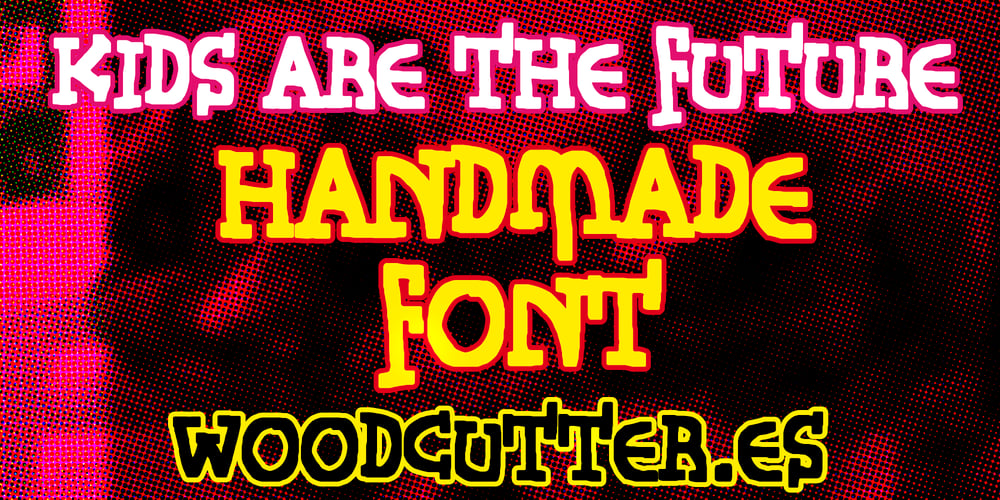
Kids Are The Future Font Family was designed by Jordi Manero and published by Woodcutter. Kids Are The Future contains 1 styles and family package options. “Kids Are The Future” is a handmade typeface with accents, featuring rigid and original strokes. Each letter showcases a unique design that evokes the creativity and freshness of children’s drawings. Perfect for educational projects, children’s books, and any design aiming to convey a sense of innocence and energy. Its authentic and handcrafted appearance adds a personal and charming touch, making the text feel warm and full of life. “Kids Are The Future” is ideal for capturing the essence of youth and boundless imagination.